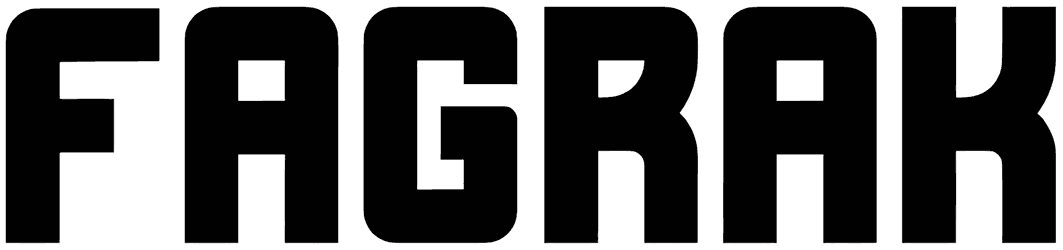
Fagrak Font
Designed byDiego Inacio
A retro techno font creates a trendy vibe in your content. If you expect something in that mood for your project, which doesn’t matter if it’s a flyer or cover of a book, or billboard, Fagrak would be your choice.
It’s not a surprise that a high-quality typeface like this comes in two styles, and each one of them contains both the uppercase and lowercase of the alphabet, the numbers, and the punctuation marks
Fagrak is an impressive and memorable font, available in Bold and Inline versions. This typography is perfect for logos, posters and social media posts. You can combine the characters to create some unique typefaces.